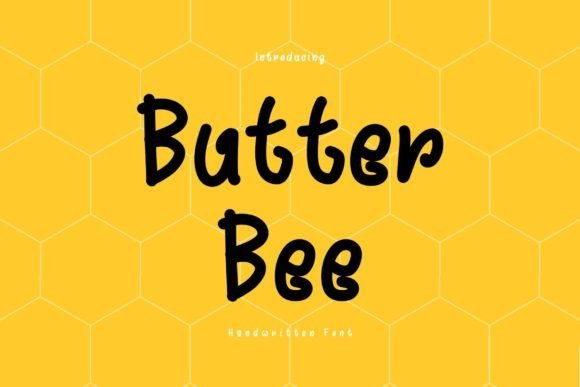
Have you ever stared at a blank page, struggling to find the perfect font to bring your creative vision to life? We’ve all been there. The cursor blinks, and the pressure builds, but then, like a ray of sunshine, you stumble upon the perfect font. For many designers, that font is the Butter Bee Font.
This charming handwritten font is more than just a pretty face – it’s a tool that adds a touch of playfulness and authenticity to any design. Whether you’re crafting a blog post, designing a logo, or creating a set of invitations, the Butter Bee Font is the perfect companion. Its versatility and charm make it a valuable asset for designers, and with its endless possibilities, it’s no wonder it’s a favorite among creatives.
Butter Bee Font Key Features
- Unique Characteristics: The Butter Bee Font features a playful, whimsical design with intricate details and a mix of serif and sans-serif elements, making it suitable for creative and artistic projects.
- Style Options: The font comes in regular and bold weights, providing flexibility for designers to choose the perfect style to match their project’s tone and mood.
Butter Bee Font Review
I recently had the chance to work with the Butter Bee Font and I have to say it’s a unique and charming font. The font’s playful and whimsical feel ✨ makes it perfect for projects that require a touch of warmth and friendliness.
One of the standout features of Butter Bee is its high level of customization ✨. The font comes with a wide range of styles and weights, making it easy to find the perfect fit for your design needs. Additionally, the font is fully scalable, ensuring that it looks great on everything from small mobile screens to large-format prints.
However, I did encounter some limitations while working with Butter Bee ⚠️. One of the main issues is the font’s lack of legibility at very small sizes. This can make it difficult to use in situations where text needs to be extremely compact. Additionally, the font’s unique style can sometimes make it difficult to read in certain contexts.
Overall, I think the Butter Bee Font is a solid choice for designers looking to add a touch of personality to their projects. While it may not be the best fit for every design need, its unique style and high level of customization make it a great option for the right project.
Limits and Recommendations
- Limited legibility at very small sizes
- May not be suitable for all design contexts
- Requires careful consideration of font size and style to achieve optimal results
For the most out of Butter Bee Font, use it in bold or italic styles to add emphasis to your text.
Use it in combination with other fonts to create a unique and eye-catching design.
Experiment with different font sizes and colors to find the perfect balance for your design.
Butter Bee Font is perfect for:
Creative projects such as invitations, posters, and brochures.
Branding and marketing materials such as business cards and logos.
Designing social media graphics and ads.